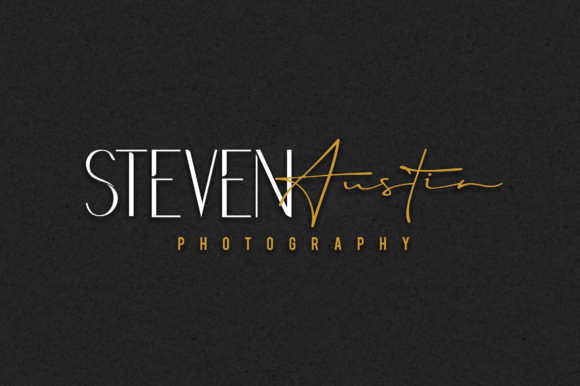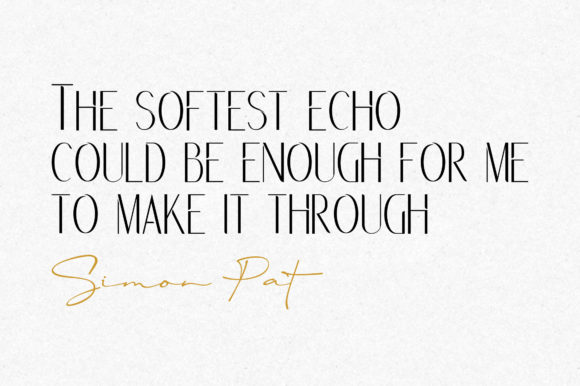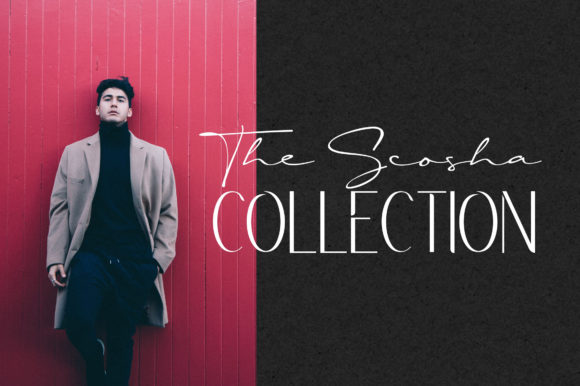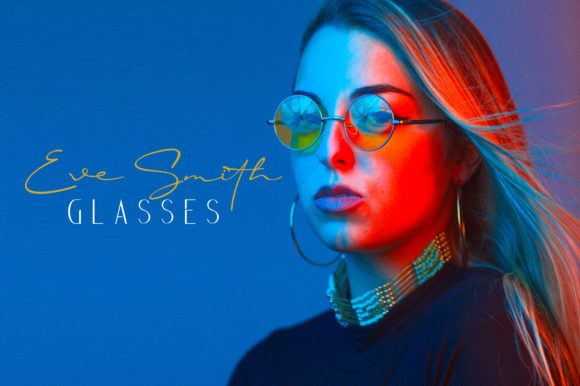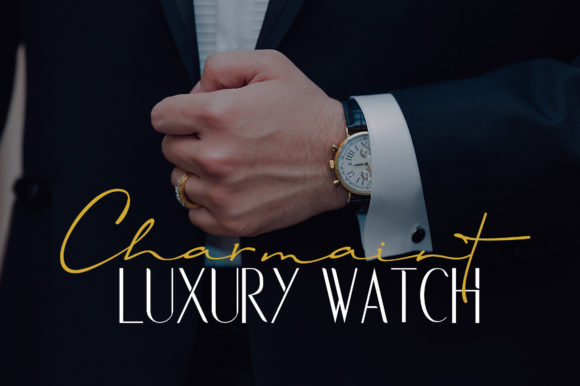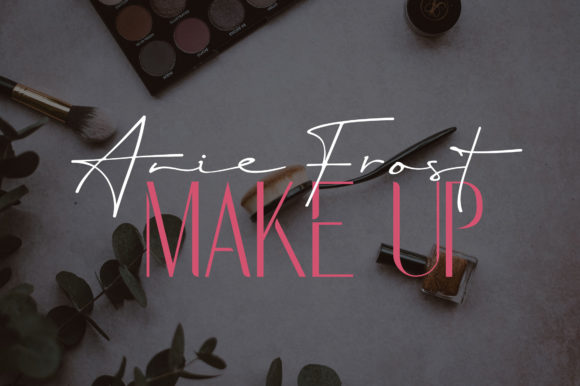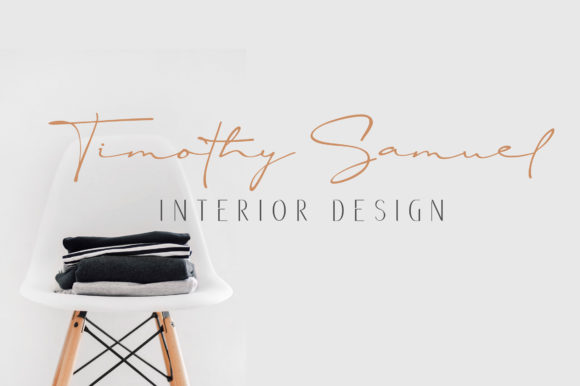
Rochefort Duo Font
About Rochefort Duo Font
The Rochefort is an elegant font duo. With its lovely strokes and signature style, the Rochefort is perfect for adding an unique feel to your designs.